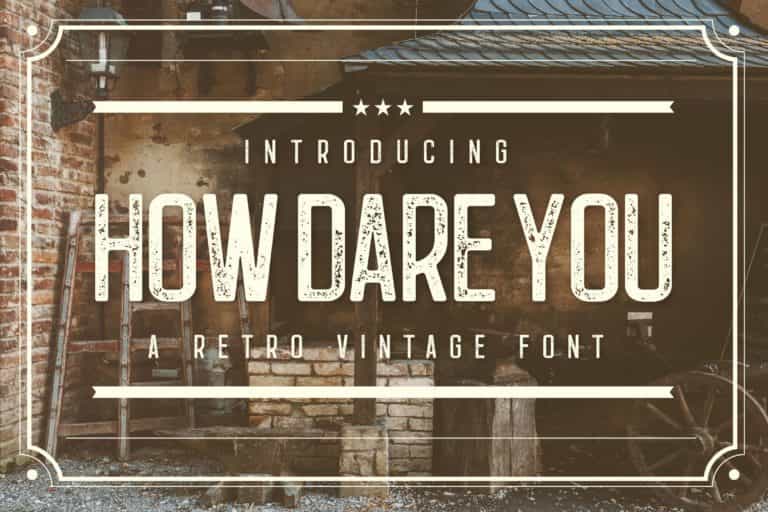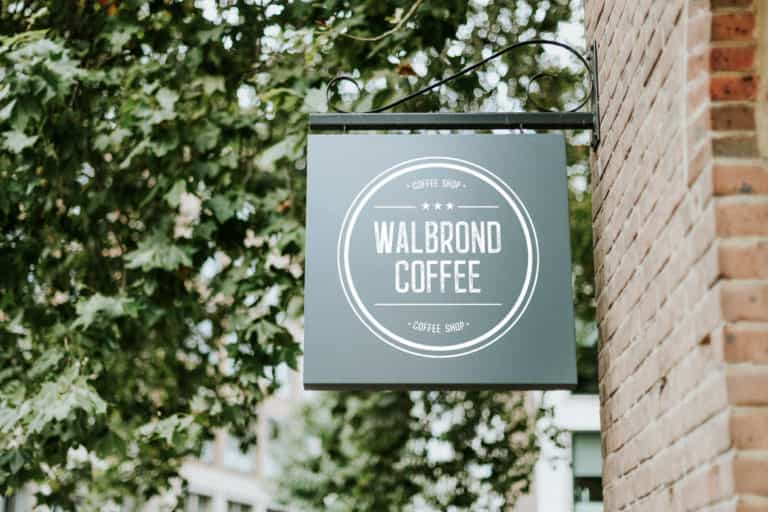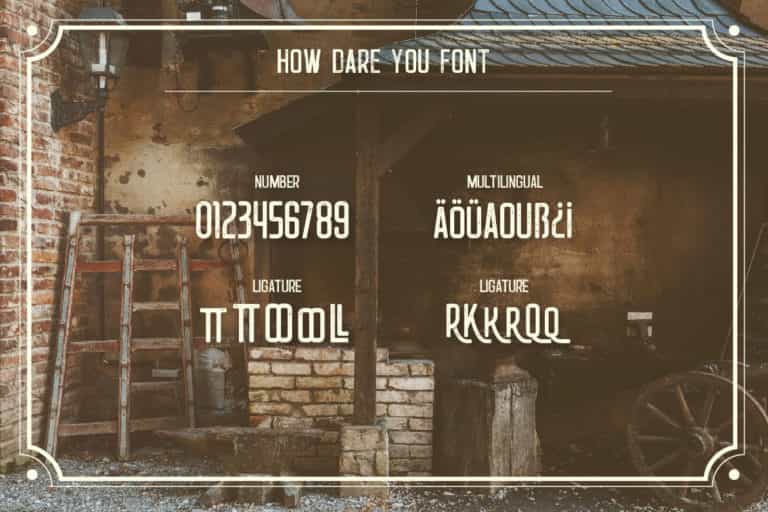
What Dare You font is a Retro Vintage font that is suitable for quotes, fashion, and lifestyle projects such as logos, and magazines. Including standard uppercase letters, numbers, symbols and some of the alphabets of other languages.